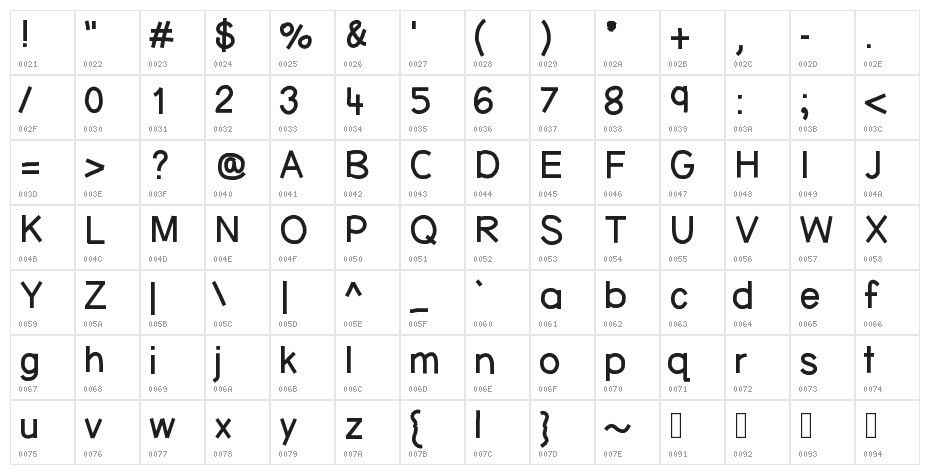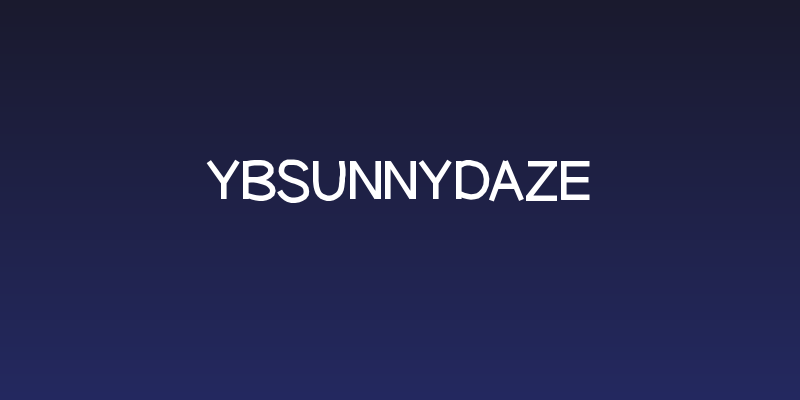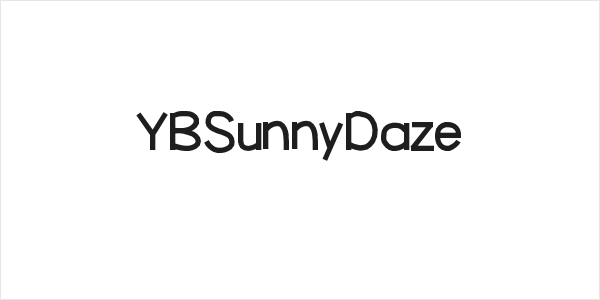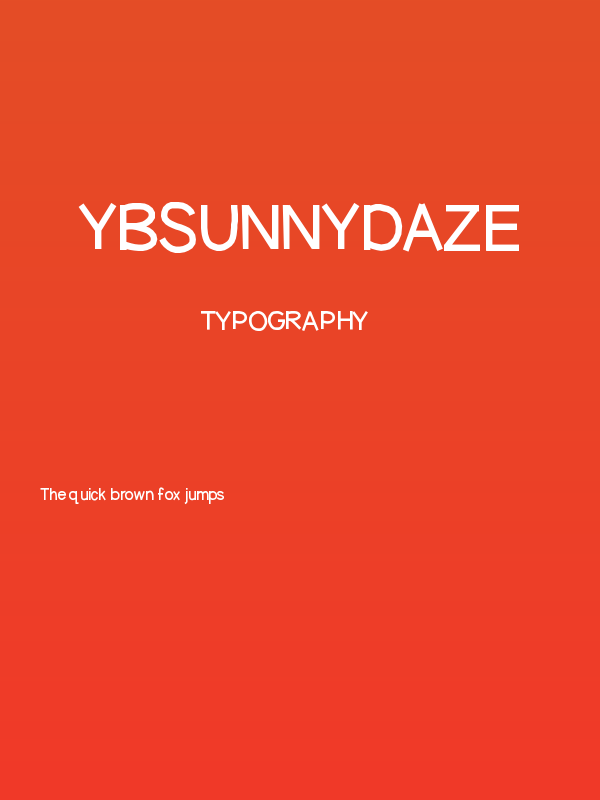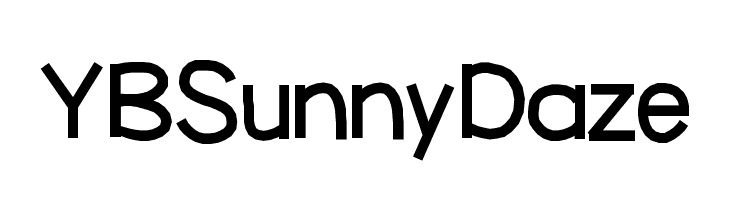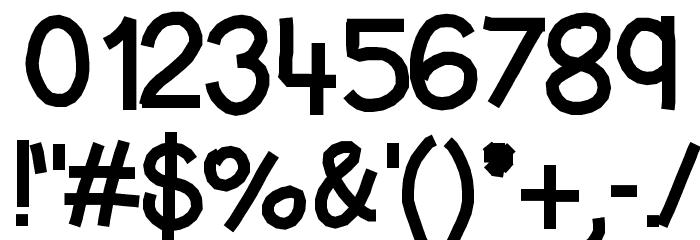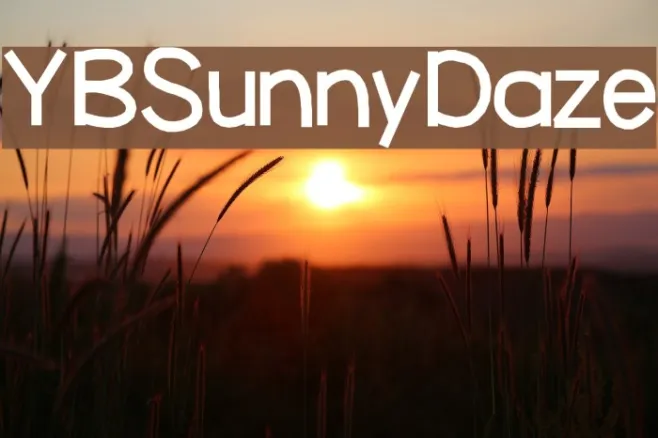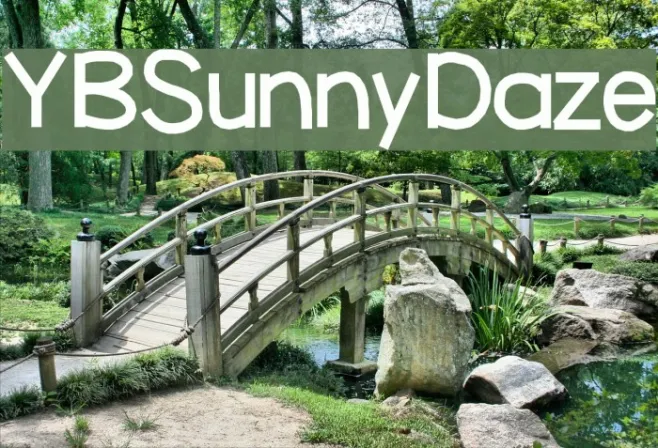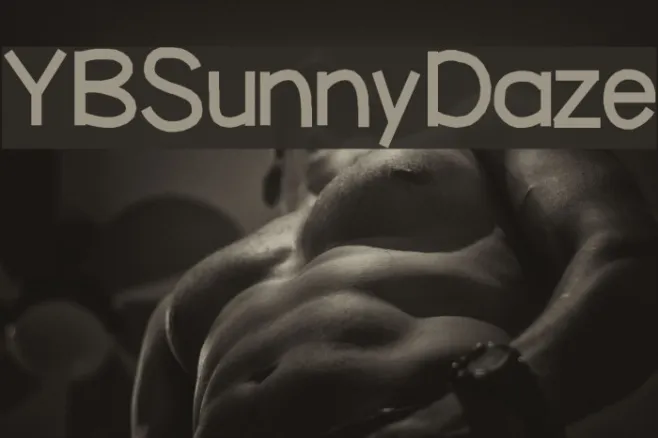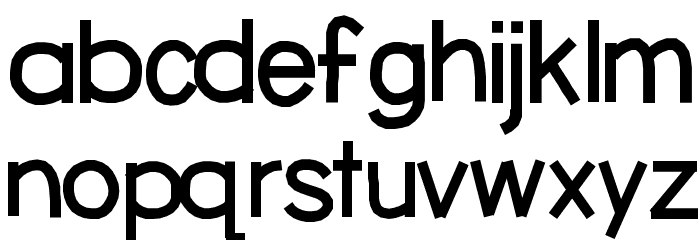
YBSunnyDaze Font
YBSunnyDaze Description
This font features a clean and modern sans-serif style with uniform stroke widths, giving it a sleek and contemporary appearance. The characters are well-proportioned, with a slightly rounded finish that adds a touch of friendliness to the overall design. The uppercase letters are bold and assertive, while the lowercase letters maintain a consistent height, enhancing readability. The numerals are clear and distinct, making them suitable for various applications. Special characters are included, maintaining the same design ethos, ensuring versatility across different uses.
YBSUNNYDAZE UPPERCASE
YBSUNNYDAZE LOWERCASE
YBSUNNYDAZE OTHER CHARS